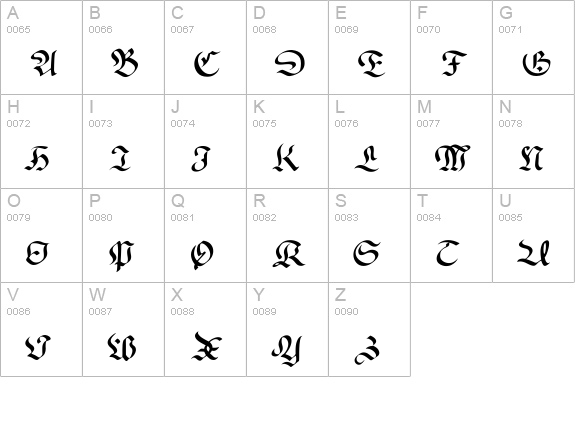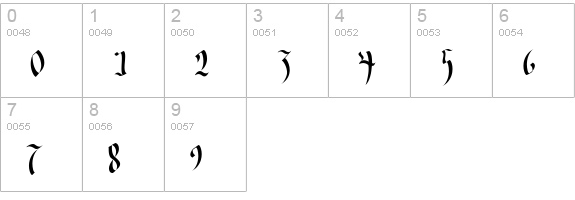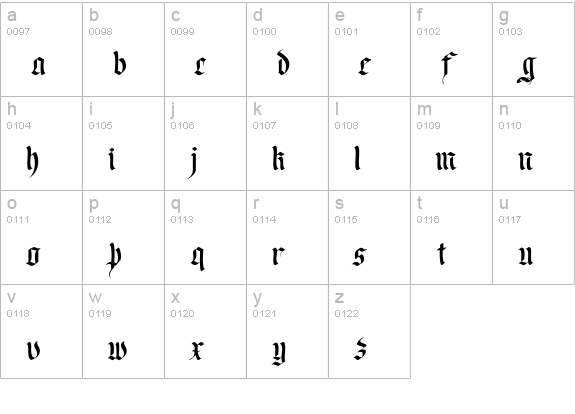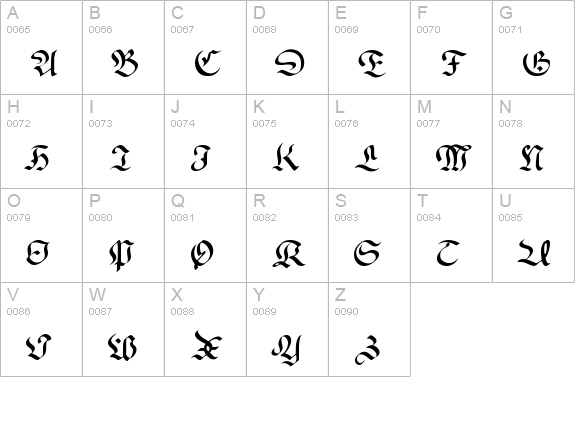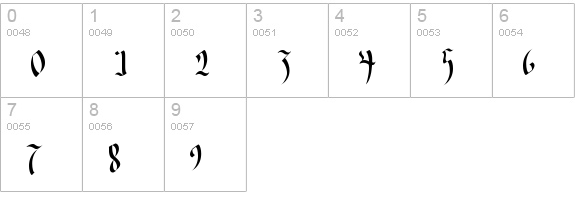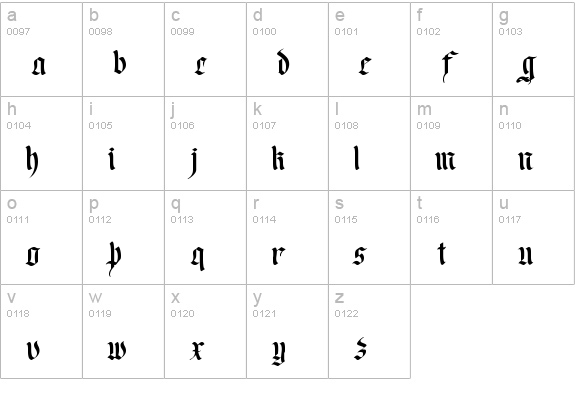
Goethe Font Details
The exquisite Goethe font is a stunning display typeface that combines elegance and sophistication in every curve and stroke. Its timeless design exudes a sense of grace and charm, making it the perfect choice for projects that require a touch of class. The Goethe font is versatile and can be used for a variety of purposes, from branding and logos to invitations and posters. Best of all, the Goethe font is completely free for personal and commercial use, allowing you to add a touch of refinement to your designs without breaking the bank. You can easily download the Goethe font at FontsMarket.com, where you'll find a wide selection of high-quality fonts to suit all your creative needs. Elevate your projects with the Goethe font and make a lasting impression with its timeless beauty and sophistication.